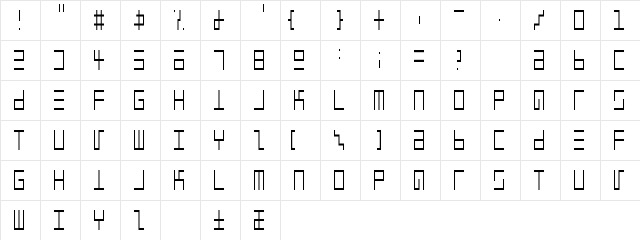
Epps Evans Narrow Light Regular
Design Context for Epps Evans Narrow Light Typeface
Epps Evans Narrow Light takes a measured approach to typography — its balanced proportions and neutral character make it a reliable workhorse for both digital and print work. Its slender proportions lend an understated elegance to any composition. The condensed width makes it efficient for tight spaces without sacrificing legibility.